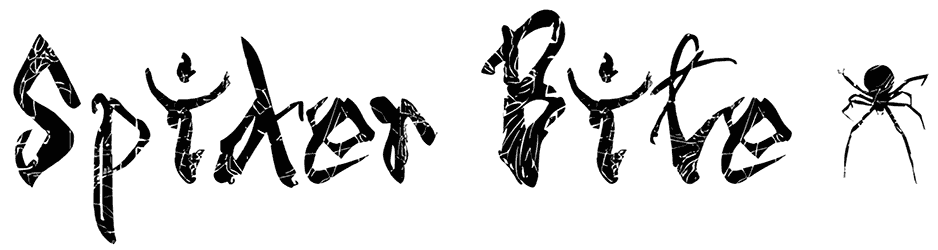
Spider Bite Font
Spider Bite is a well-designed horror font that grabs your attention from the first second. This spider font has a dark, scary theme that seems entertaining to the viewers.
You may use the Spider Bite on several occasions, such as posters, prints on T-shirts, and horror video games. This scary font’s letters are a bit eroded and opaque, creating a frightening feeling. Moreover, their sharp edges make them harsh and unforgettable for the audience.
Created in 2009. Hand-lettered.